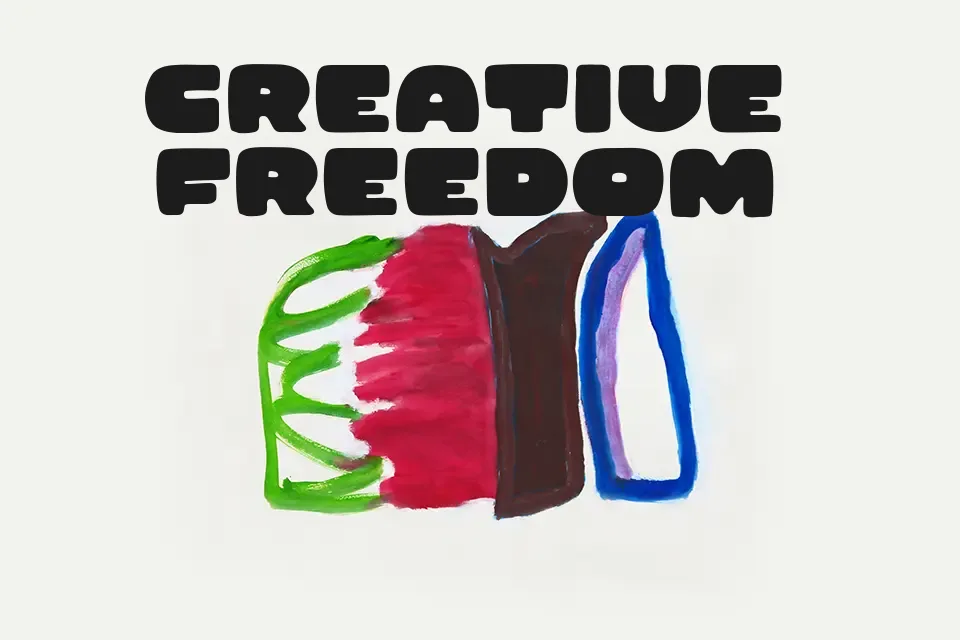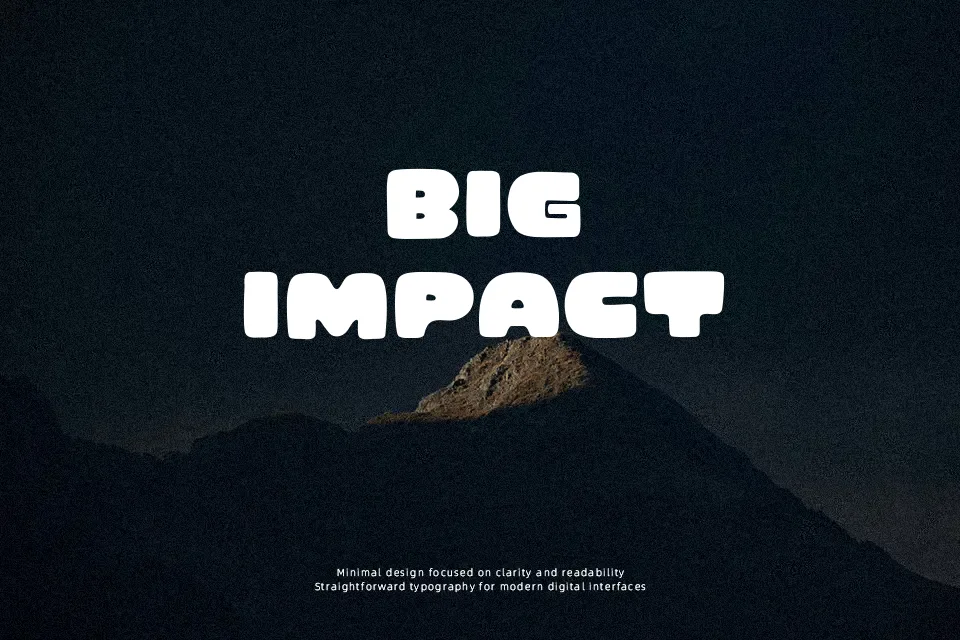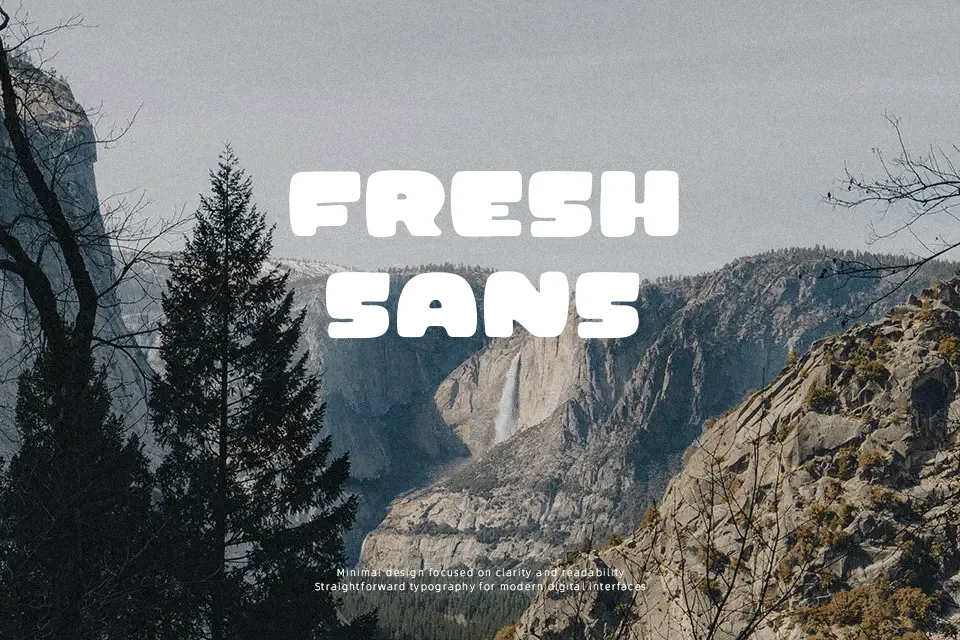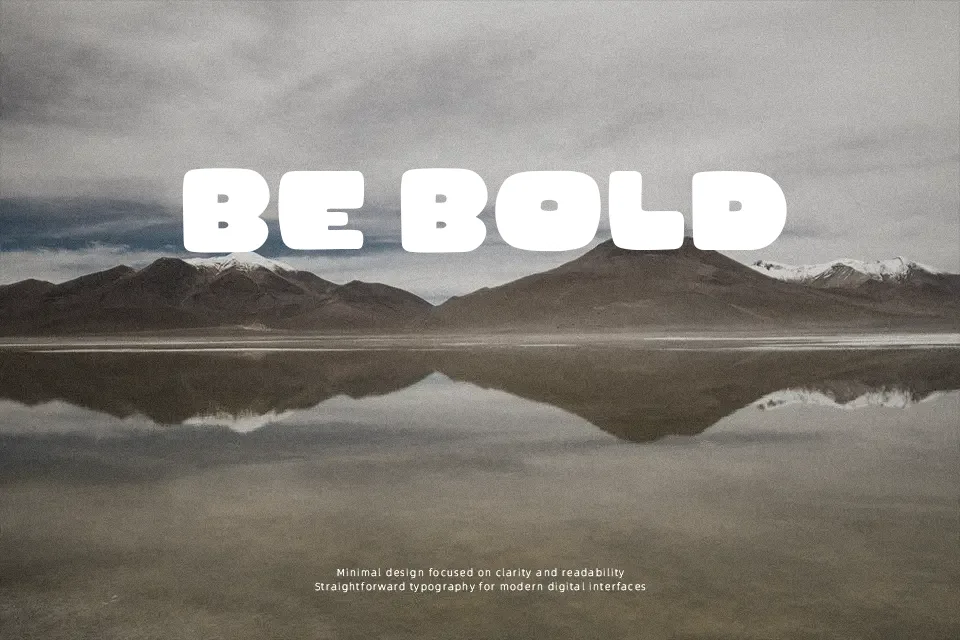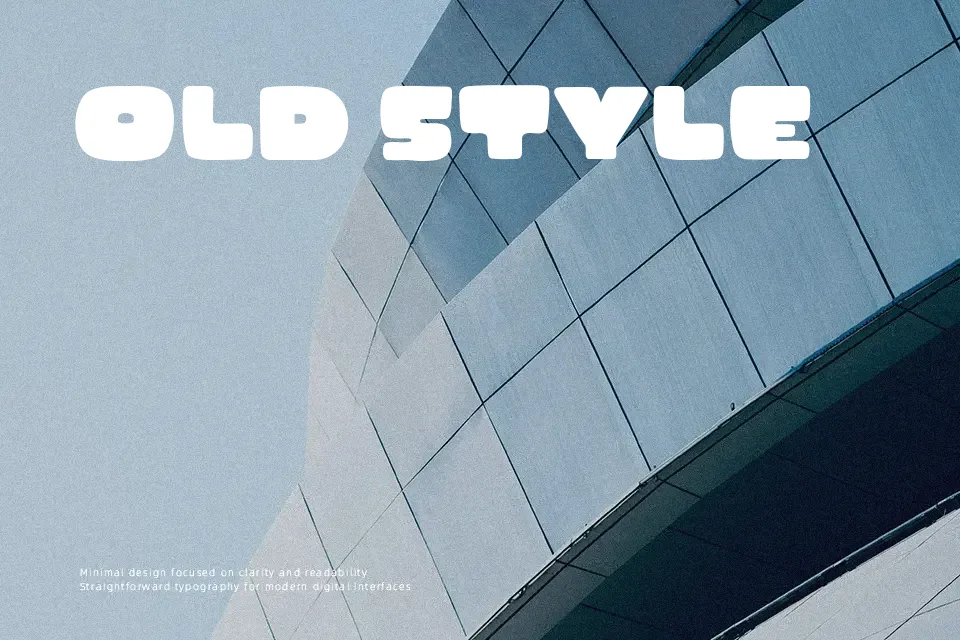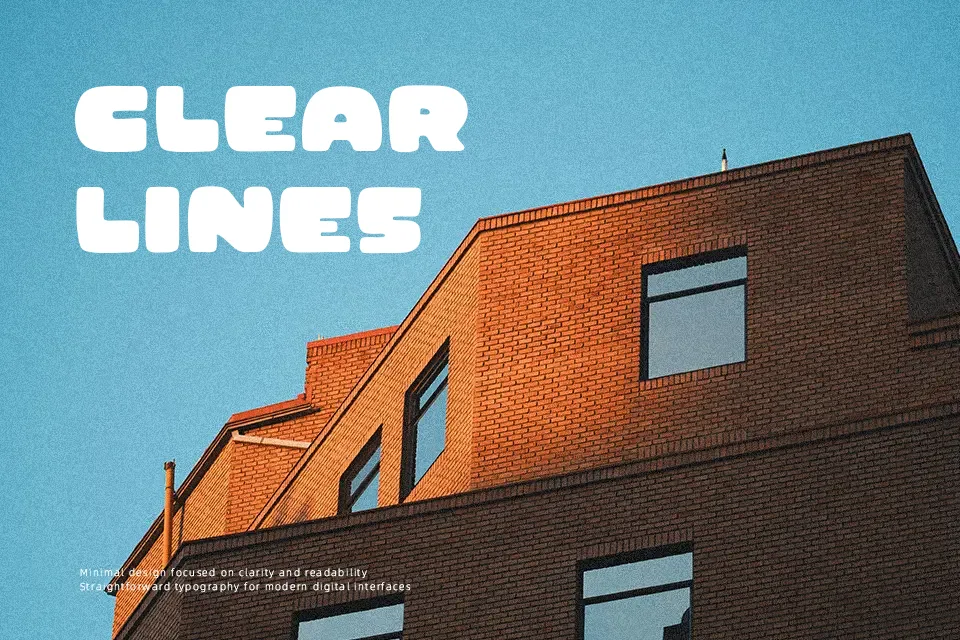
Pop Core Font
A short product label or poster headline benefits greatly from the energetic bounce of Pop Core Font. The letterforms display thick, marker-like strokes with softly rounded terminals, creating a highly approachable and bubbly aesthetic. Its generous proportions and open spacing help maintain clarity in larger headlines, allowing the bouncy rhythm to shine without feeling cluttered. This typeface performs exceptionally well in casual gaming titles, children’s book covers, and vibrant snack packaging. However, the heavy weight and playful baseline make it less suitable for long paragraphs, where the dense forms reduce comfort during extended reading.
children’s book covers
casual mobile game interfaces
snack food packaging
vibrant event posters
corporate annual reports